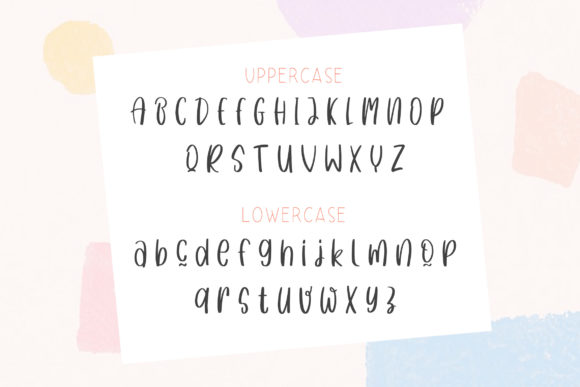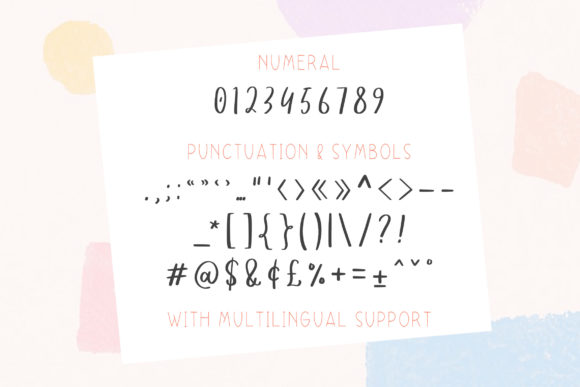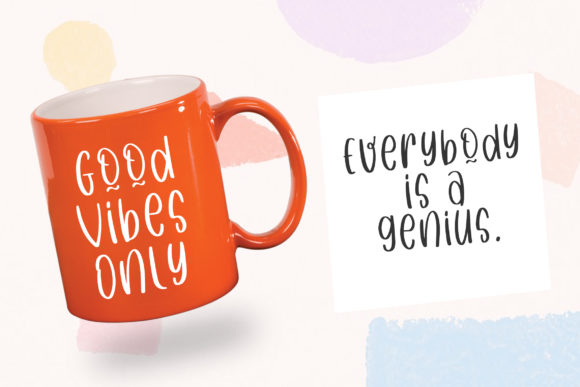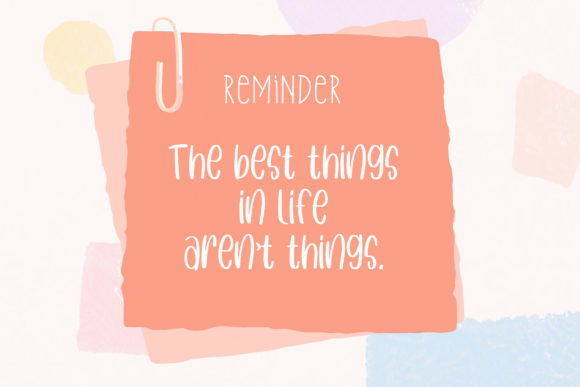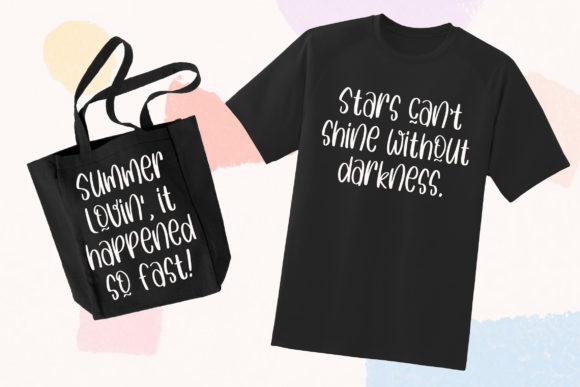
Amoeba Font: The Cute and Quirky Handwritten Font to Elevate Your Designs
Are you a designer or crafter looking for a unique and playful font to add a personal touch to your creations? Look no further than the Amoeba Font! This adorable handwritten font is sure to capture the hearts of your audience with its sweet and quirky charm. In this article, we’ll dive into the world of Amoeba Font and explore its features, uses, and benefits.
What is Amoeba Font?
Amoeba Font is a carefully crafted handwritten font that exudes a sense of playfulness and whimsy. Its cute and quirky design makes it perfect for a wide range of creative projects, from product packaging to business cards, and more! The font’s unique personality is sure to make your designs stand out from the crowd and leave a lasting impression on your audience.
Features of Amoeba Font
So, what makes Amoeba Font so special? Here are some of its key features:
- Handwritten design: Amoeba Font is a genuine handwritten font, giving it a personal and organic feel that’s hard to replicate with machine-made fonts.
- Cute and quirky: The font’s playful design is sure to bring a smile to your audience’s faces, making it perfect for brands and projects that want to convey a sense of fun and friendliness.
- Versatile: Amoeba Font is incredibly versatile, making it suitable for a wide range of creative projects, from digital designs to print materials.
- Easily readable: Despite its playful design, Amoeba Font is still highly readable, making it perfect for use in body text, headings, and titles.
Uses of Amoeba Font
So, how can you use Amoeba Font in your designs? Here are some ideas to get you started:
- Product packaging: Add a personal touch to your product packaging with Amoeba Font. Its playful design is sure to make your products stand out on store shelves.
- Business cards: Create memorable business cards with Amoeba Font. Its unique design is sure to make a lasting impression on potential clients and partners.
- Digital designs: Use Amoeba Font in your digital designs, such as social media graphics, blog posts, and email newsletters, to add a touch of personality and whimsy.
- Crafting projects: Amoeba Font is also perfect for crafters who want to add a personal touch to their projects, such as handmade cards, gift tags, and scrapbooking.
Benefits of Using Amoeba Font
So, why should you choose Amoeba Font for your designs? Here are some benefits to consider:
- Unique design: Amoeba Font’s unique design is sure to make your creations stand out from the crowd and leave a lasting impression on your audience.
- Versatile: The font’s versatility makes it suitable for a wide range of creative projects, from digital designs to print materials.
In conclusion, Amoeba Font is a cute and quirky handwritten font that’s perfect for designers and crafters who want to add a personal touch to their creations. Its unique design, versatility, and ease of use make it an excellent choice for a wide range of creative projects. Whether you’re looking to create product packaging, business cards, or digital designs, Amoeba Font is sure to elevate the look of your creations and leave a lasting impression on your audience.